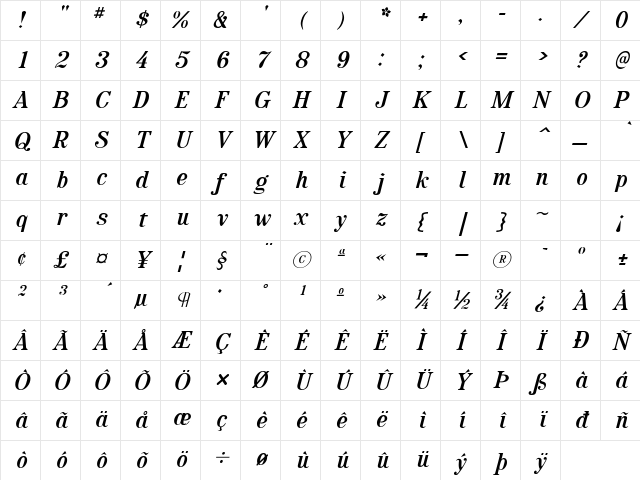
Rataczak BoldItalic
Design Context for Rataczak
Rataczak is a composed and adaptable typeface that performs quietly and consistently across a wide range of design contexts. The slanted form adds forward momentum and visual energy. Its bold stroke weight gives it real presence on the page.